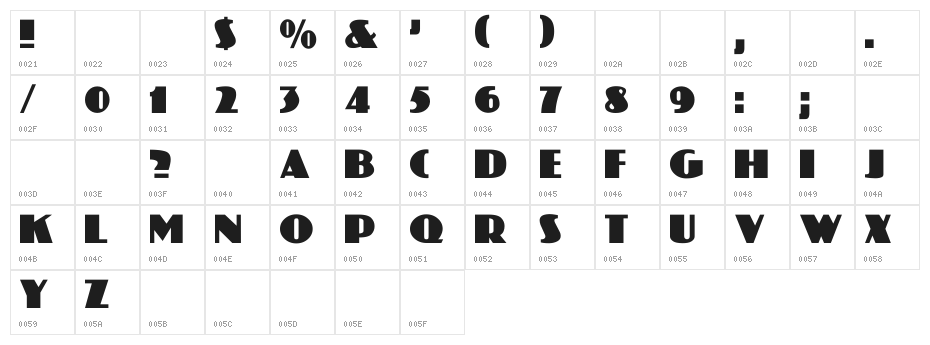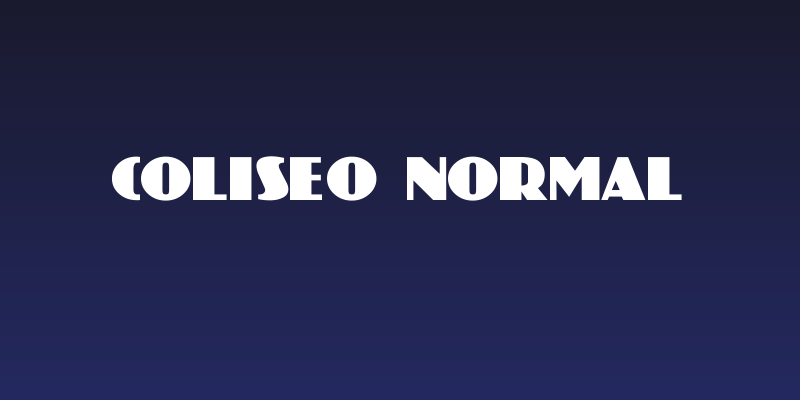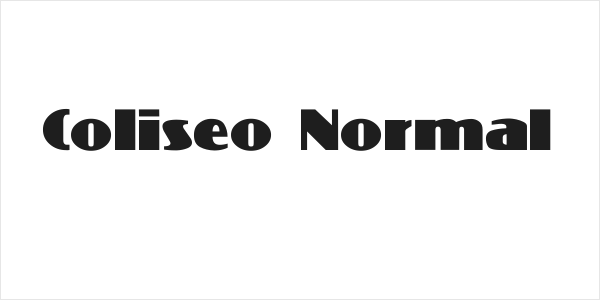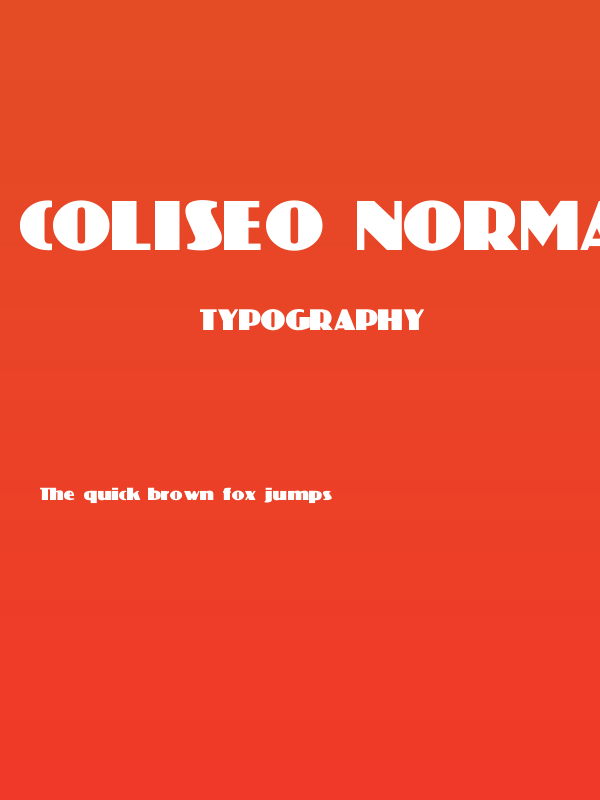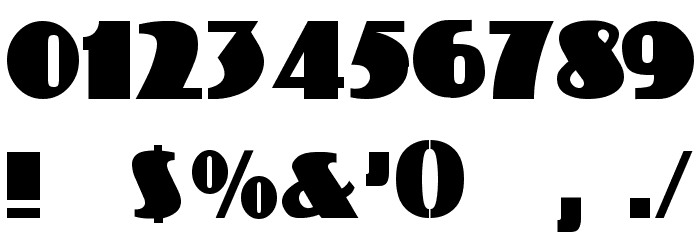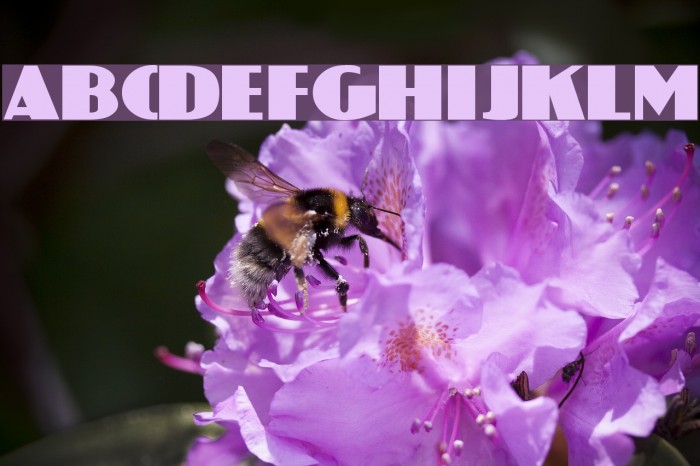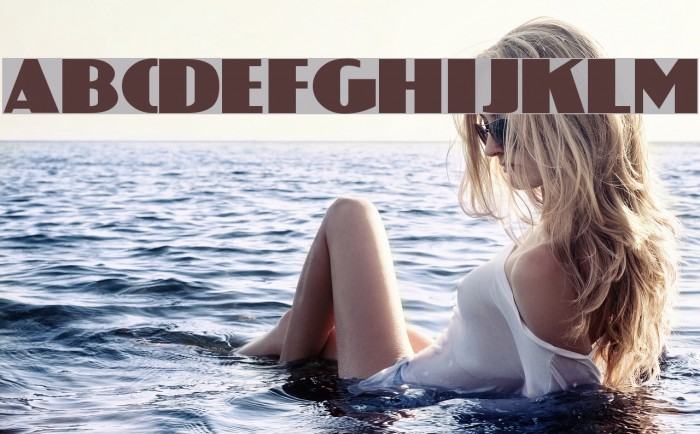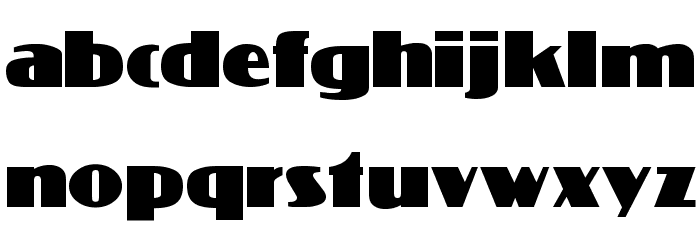
Coliseo-Normal Font
Coliseo-Normal Description
This font features bold, dramatic strokes with a strong presence, making it ideal for impactful headlines and attention-grabbing designs. The characters are wide and have a distinct geometric influence, with sharp angles and clean lines. The uppercase letters are particularly striking, with a uniform height that enhances their boldness. The lowercase letters maintain the same boldness, ensuring consistency across text. Numbers and special characters are equally bold, ensuring they stand out in any context. The overall design is modern and assertive, perfect for making a statement.
| Width | Expanded |
| Proposed Projects | This font is perfect for branding, posters, advertising, and any project requiring a strong visual impact. |